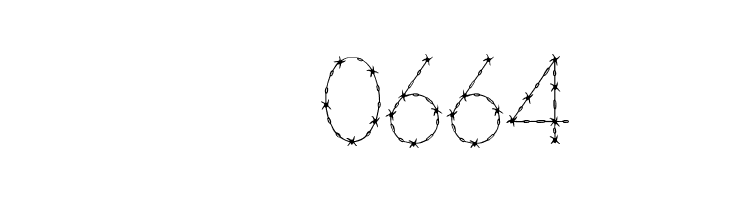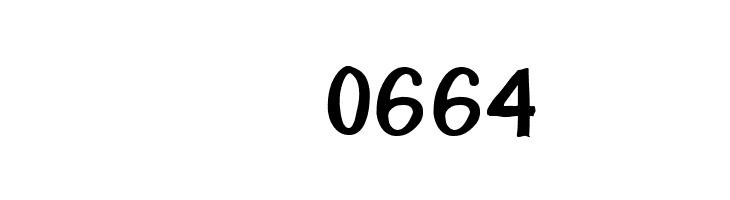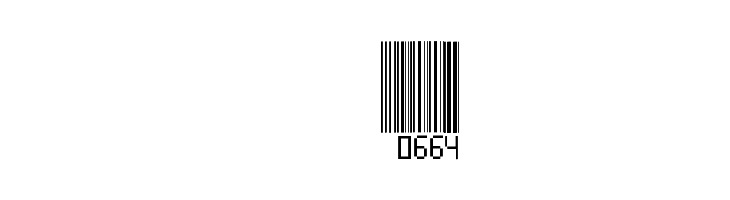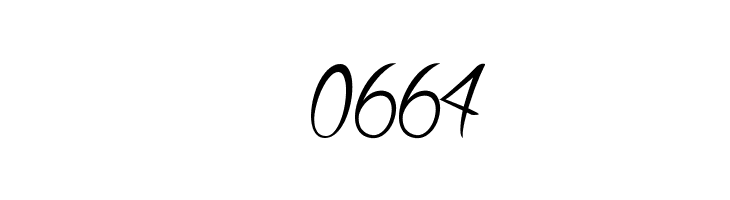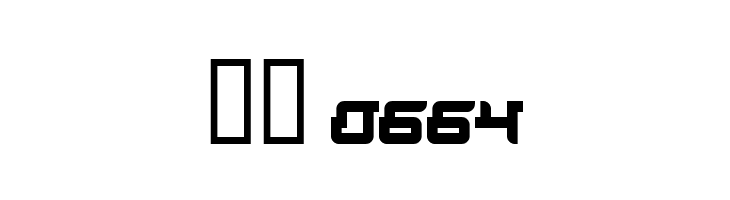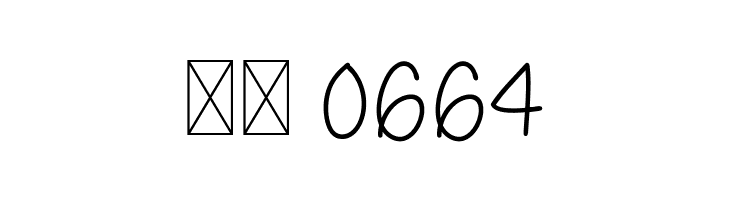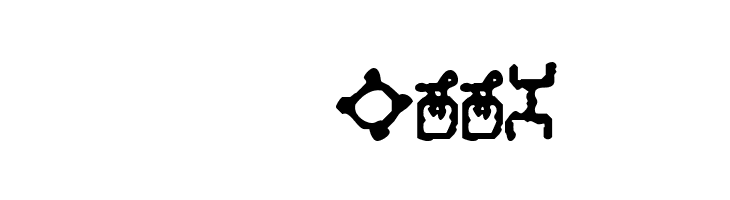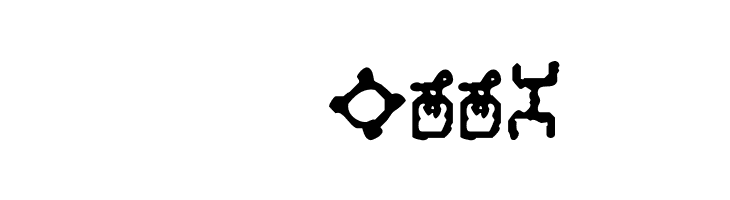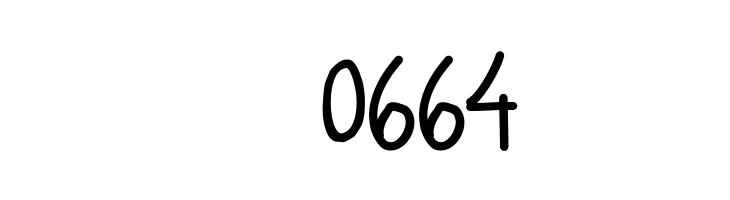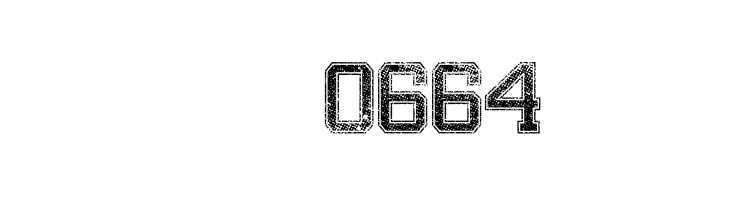
A bold, expressive brush-style font with a dynamic, artistic flair.
A playful, rounded, and bold font with a friendly and modern appearance.
A bold, rounded font with a playful and friendly style.
A playful, rounded font with a bold and friendly appearance.
A bold, rounded font with a playful and friendly appearance.
A playful, rounded font with a bold and friendly appearance.
A playful, rounded font with bold, uniform strokes and smooth curves.
A playful, rounded font with bold, smooth curves and a modern, informal style.
A bold, rounded font with a playful and friendly style.
A playful, slanted handwritten font with medium contrast and a dynamic style.
A classic serif font with elegant strokes and moderate contrast.
A playful, bold, and hand-drawn font with a whimsical style.
Playful handwritten font.
A bold, playful font with rounded, bubbly characters perfect for fun, creative projects.
A dynamic and flowing script font with elegant curves and a slightly slanted style.
A bold, distressed font with a vintage, textured style.
A display font with banking and financial iconography integrated into bold, blocky letters.
A bold, geometric font with a futuristic and digital aesthetic.
A flowing, cursive script with elegant, sweeping strokes and a handwritten appearance.
A bold, vintage script font with a brush-like texture and decorative style.
A bold, brush-style script font with high contrast and connected characters.
A bold, dynamic font with a twisted, hand-drawn appearance.
A bold, hand-drawn 3D block font with intricate line work.
A bold, twisted outline font with a dynamic, hand-drawn style.
A barcode-inspired font with geometric, linear characters.